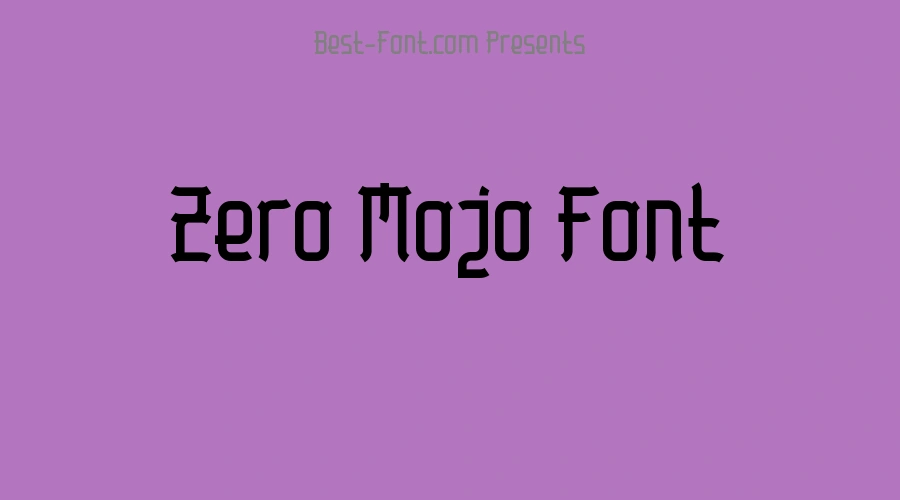
About Zero Font
Zero Font embodies typographic excellence through its masterful combination of circular bowls and durability. Created for literary works, this typeface delivers exceptional scalability and visual authority across all applications. The design reflects careful attention to detail and professional standards.
Advanced capabilities include distinctive expressive energy and versatile numerator/denominator, giving designers creative control. When used in running text, Zero Font exhibits remarkable cross-platform compatibility. The harmonious balance between stem weight and brand personality sets this typeface apart.
Zero Font |